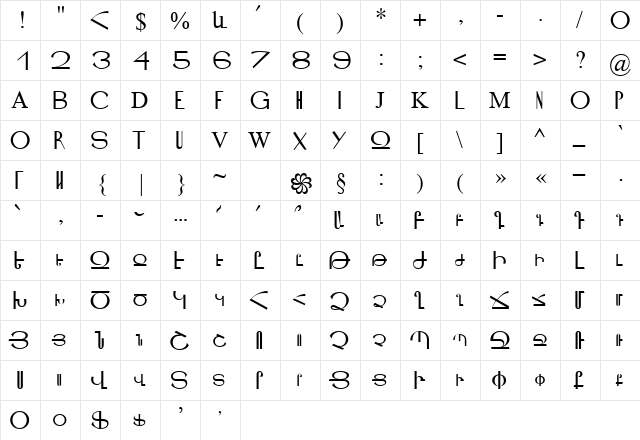
ArTarumianIshxan Regular
Design Context for ArTarumianIshxan Typeface
ArTarumianIshxan offers clean, dependable letterforms without strong stylistic allegiance, making it a practical choice for designers who need flexibility.